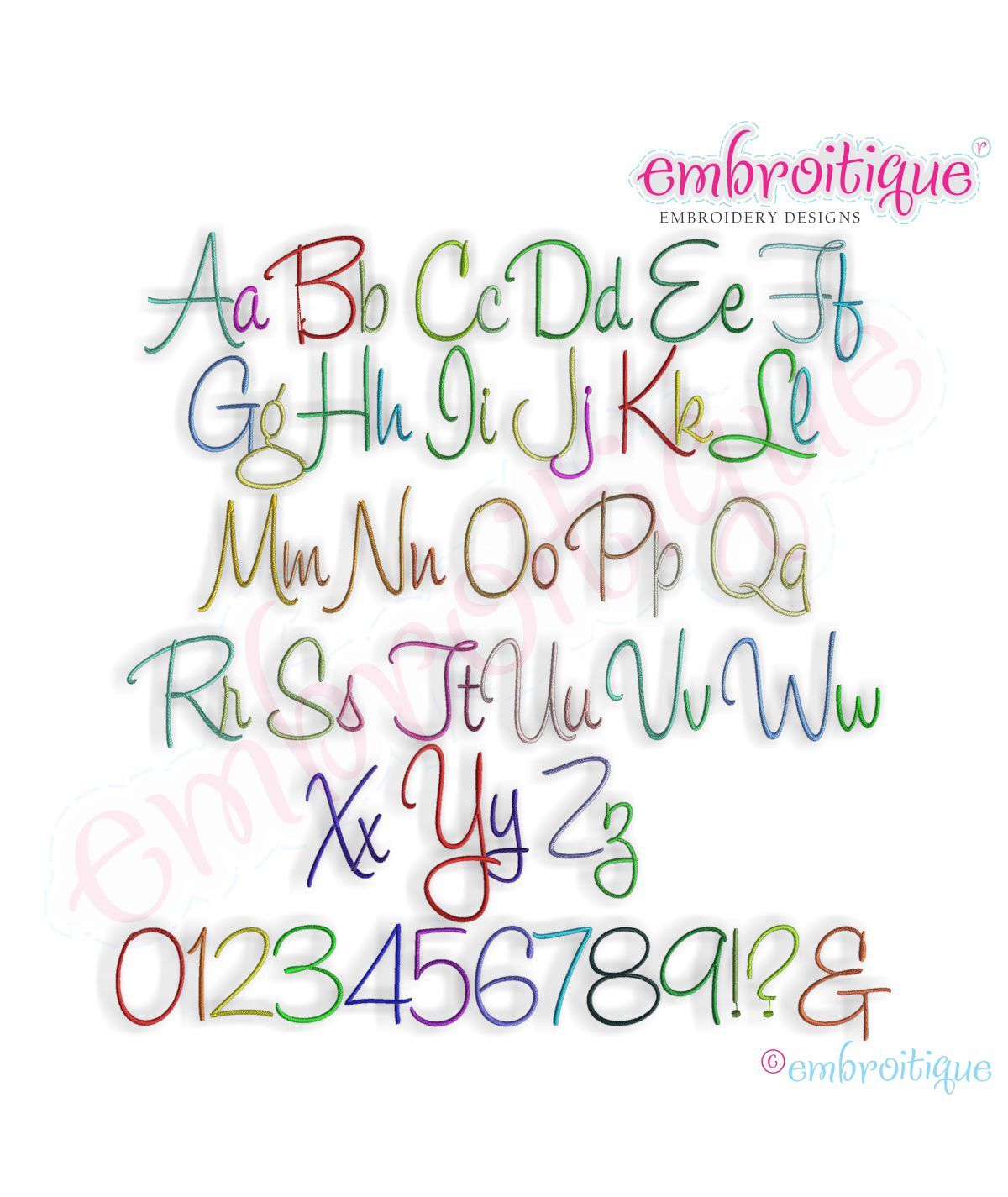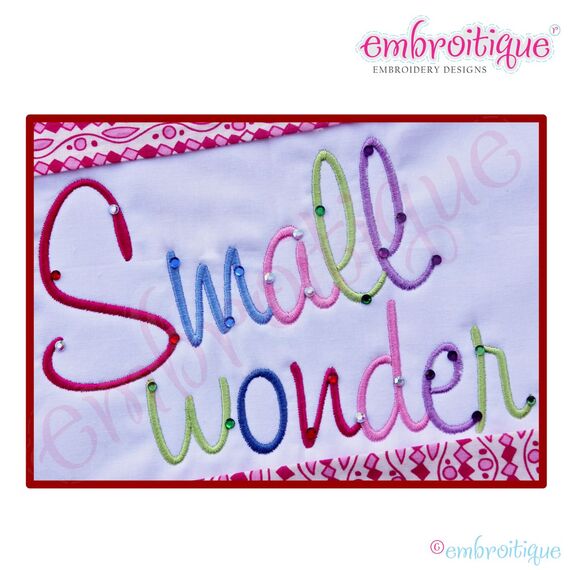
Small Wonder Monogram Font Set - Large -BX files included
This is such a fun and simple satin-stitch set!  Also available in larger sizes (4-8").  Each letter is an individual file that you can use to build monograms, names and sayings.
Sizes Included:   4", 5", 6", 7", 8" - Satin Stitch - Uppercase A-Z, lowercase a-z, 0-9, question mark, exclamation point, ampersand, period, plural ('s)